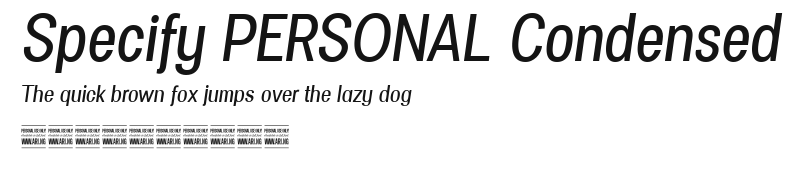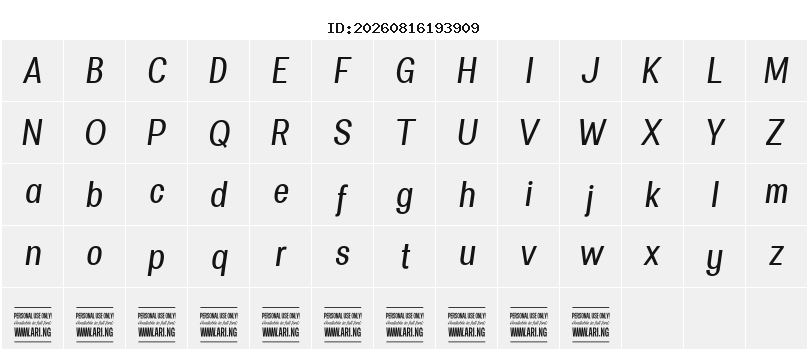
Specify PERSONAL Condensed Preview
• Font Name: Specify PERSONAL Condensed
• Font Style: Medium Italic
• Font ID: MnsGrebck: Specify PERSONAL Condensed Medium Italic: 2016
• Full Font Name: Specify PERSONAL Condensed Medium Italic
• PostScript Name: SpecifyPERSONALCondensed-Medium
• Character Count: 360
• Designer: MÂns Greb‰ck
• Manufacturer: MÂns Greb‰ck
About Specify PERSONAL Condensed.ttf
Specify PERSONAL Condensed.ttf is a modern, elegant sans-serif font designed for ultimate readability and visual harmony. Perfect for branding, headlines, web design, and print materials.